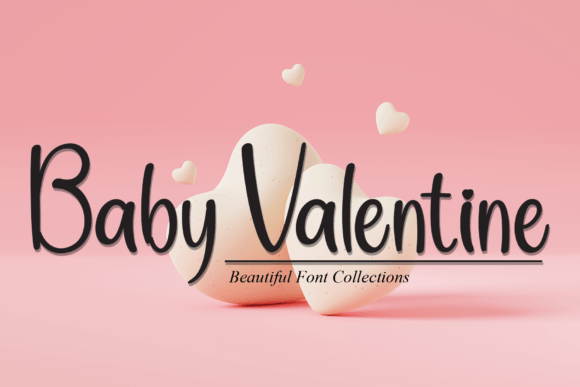
Welcome to the world of Baby Valentine Font, a delightful script font brimming with charm and playfulness. This captivating font, brought to life by the creative genius of William Jhordi, is the epitome of sweetness and friendliness. Picture perfect for adding a dash of whimsy to your creative endeavors, Baby Valentine Font is sure to leave a lasting impression.
As you immerse yourself in the intricacies of this script font, you'll be captivated by its delightful curves and charming imperfections. It's as if each letter has been lovingly crafted by hand, infusing your designs with a touch of warmth and personality. Let your imagination soar as you explore the endless possibilities that await you with Baby Valentine Font.
Unleash your inner artist and create eye-catching logos that radiate warmth and charm. Craft heartfelt wedding invitations that capture the essence of your special day. Design enchanting cards that convey heartfelt sentiments. With Baby Valentine Font as your creative companion, every project becomes a canvas for your imagination.
But don't just take our word for it. Dive into the world of Baby Valentine Font and experience its magic firsthand. Discover why this font has captivated the hearts of countless designers and has become the darling of the creative community. Embrace the joy of creating with Baby Valentine Font and let your designs bloom with creativity.